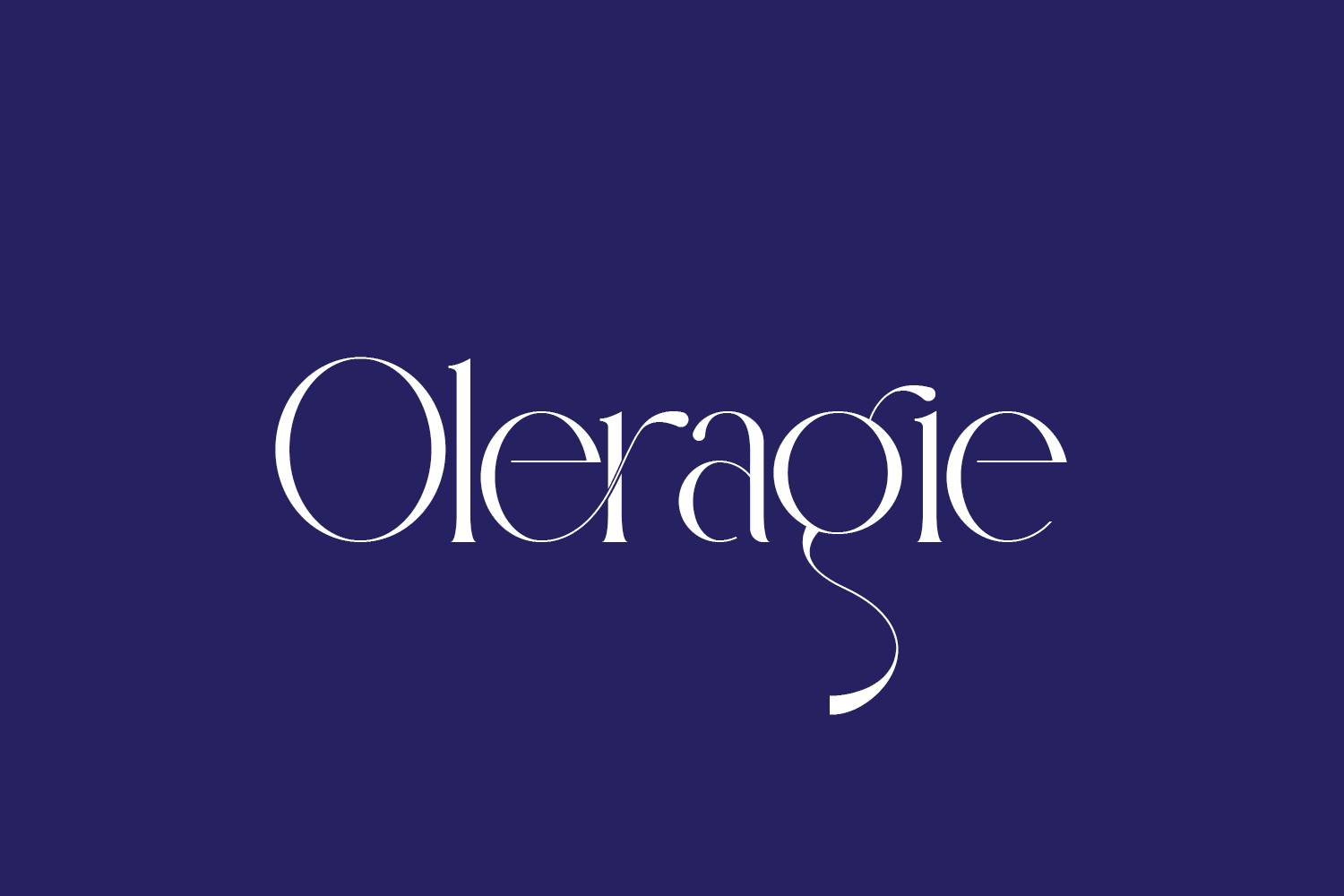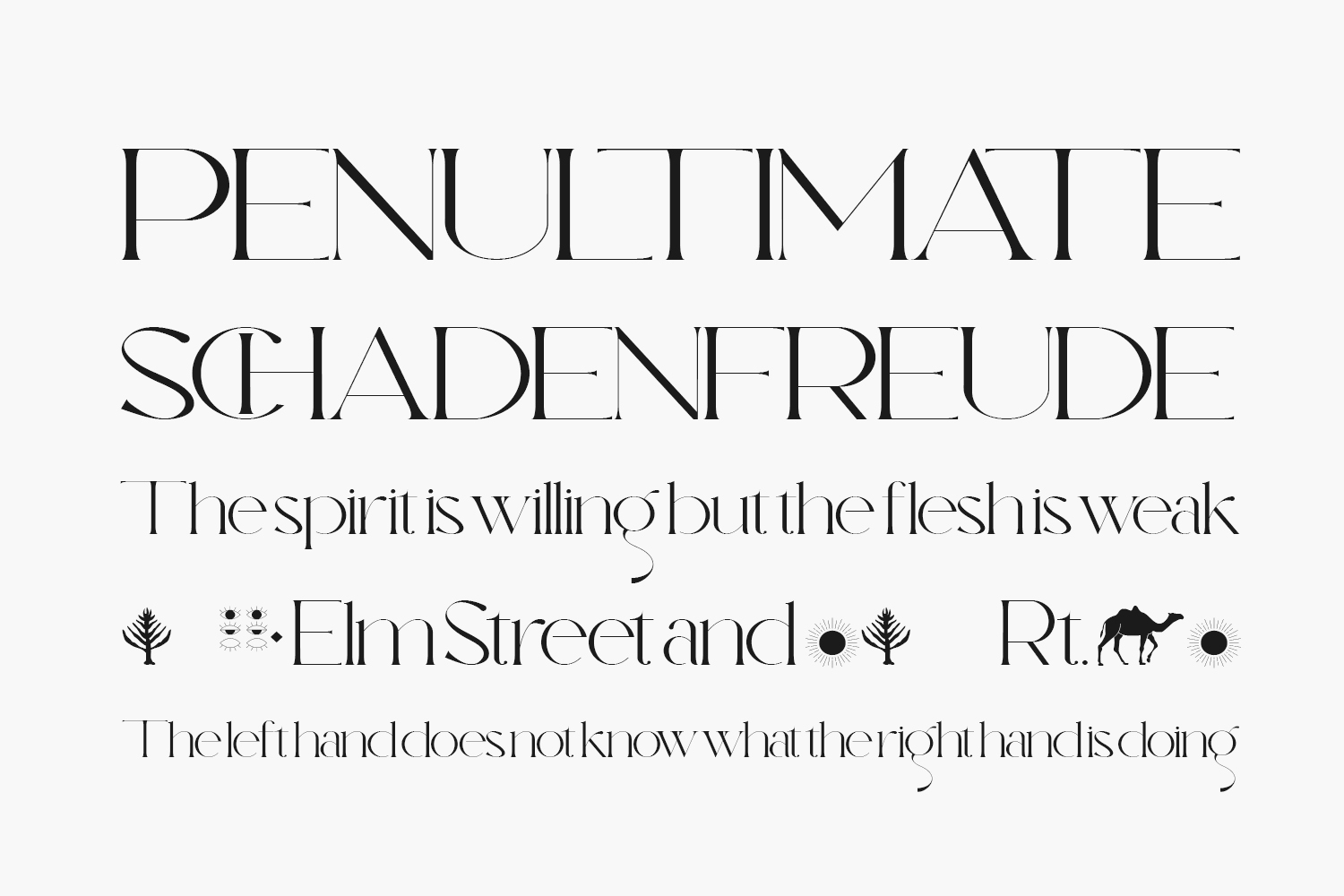
Meet Oleragie Free Font: a sophisticated modern serif font blending elegance with inspiration drawn from Egyptian and Middle Eastern atmospheres. Ideal for infusing your designs with a contemporary yet timeless appeal, exuding both style and sophistication. Download the font for free if you need it for personal use or purchase the full version for commercial use.
Designed by Hishand Studio